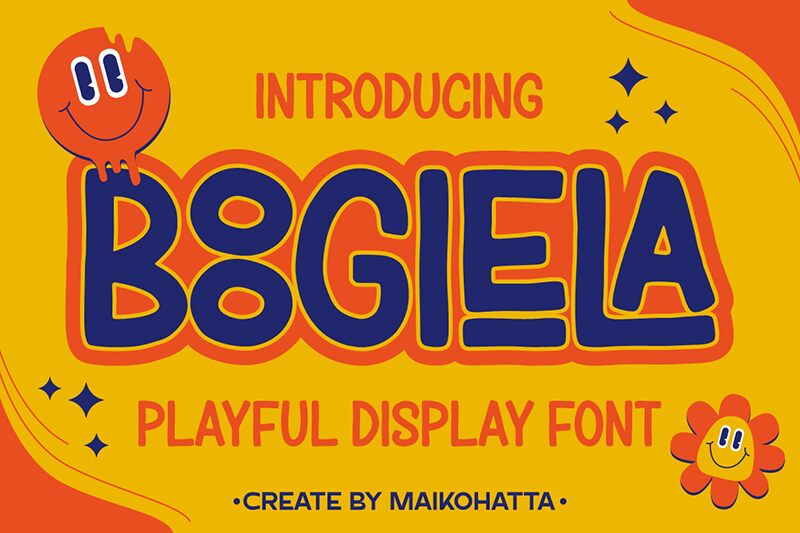
Boogiela font family is a cartoon style collection by Gilang Ternadho drawn in 2 vibrant font styles. This font family is a perfect fit for artworks, branding, and designs looking for that prominent cartoonish look. The energetic letter design is fun, friendly, and approachable, all of which are useful qualities in certain design styles. The letters are set with rounded edges and uniform dimensions and are crafted so they don’t appear aggressive, even to kids.
As a cartoon-inspired font, Boogiela can be used for illustrated book covers, toy packaging, movie and video game posters, and more. The characters are fun, bubbly, and approachable which makes them ideal for every children’s application possible. In addition to kids’ uses, use it for adult designs such as branding, visual identity, packaging, and others that are appropriate for the style.